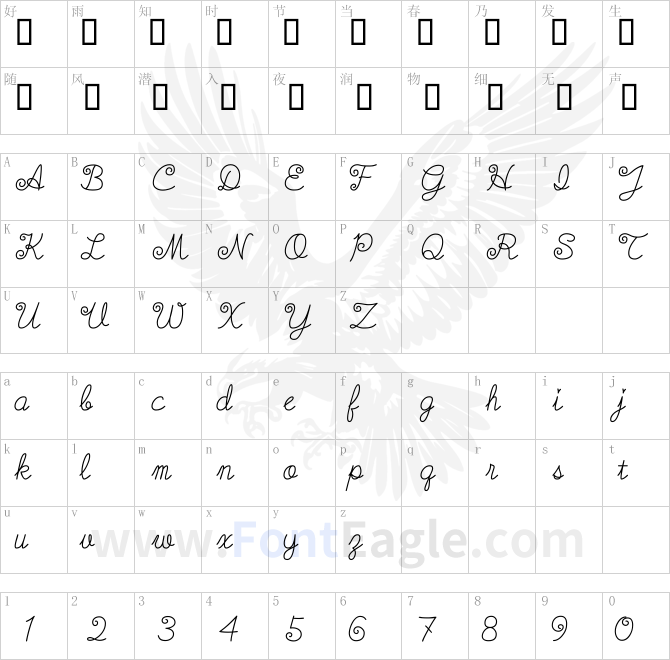
- Font name:AKMy Prince
- Font Subfamily ID:Macromedia Fontographer 4.1J AKMy Prince
- Font Full Name:AKMy Prince
- Font Version:Macromedia Fontographer 4.1J 04.3.1
- Postscript:AKMyPrince
- Font Copyright:Copyright(c) Akubi‐Zirushi 2003‐2004